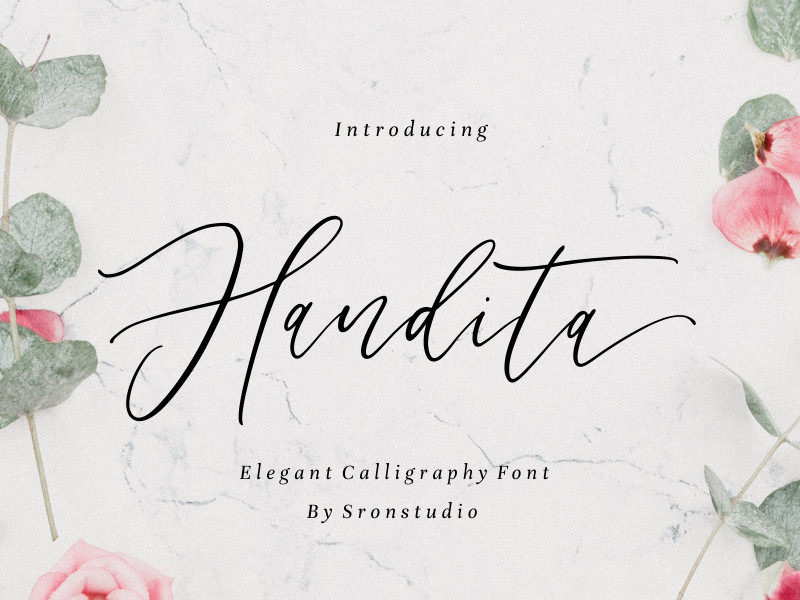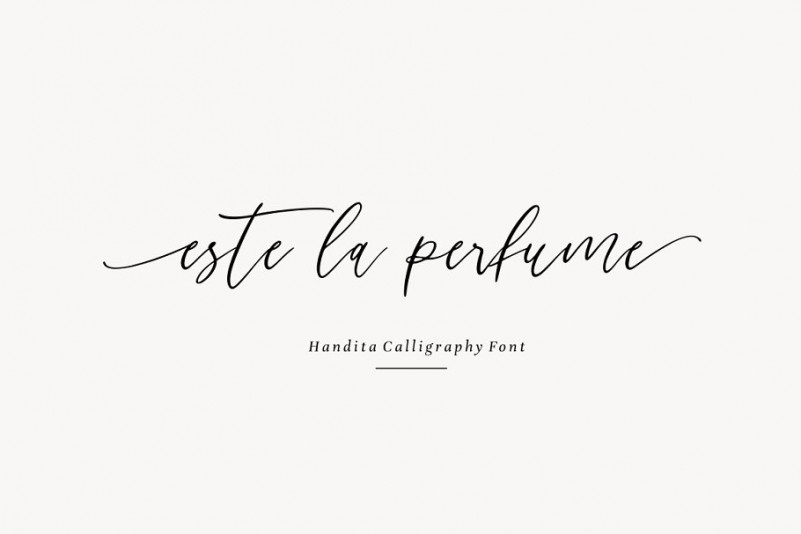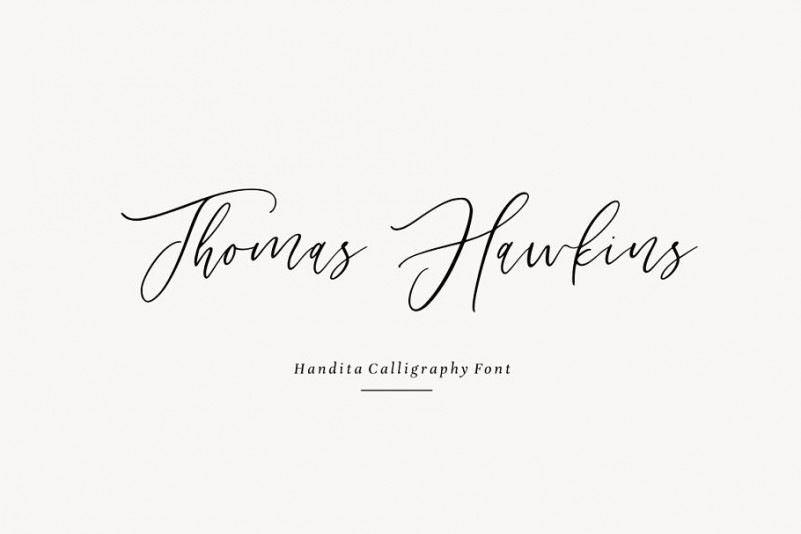
Handita Handwritten Font
Handita is a beautiful calligraphy font, this font Is perfect for logo, invitation, stationery, wedding designs, social media posts, advertisements, product packaging, product designs, label, photography, watermark, special events or anything.
Handita comes with full set of uppercase ,lowercase letters, lowercase swashes, multilingual, numerals and punctuation.